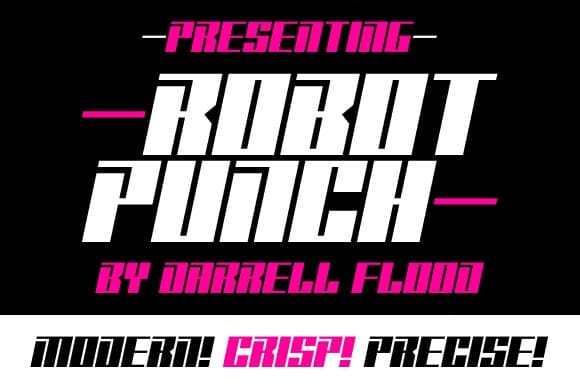
Robot Punch Font
Robot Punch Font a hard hitting robot like font in a slick science fiction style. Perfect for alien encounters, space exploration, and general high tech themes!